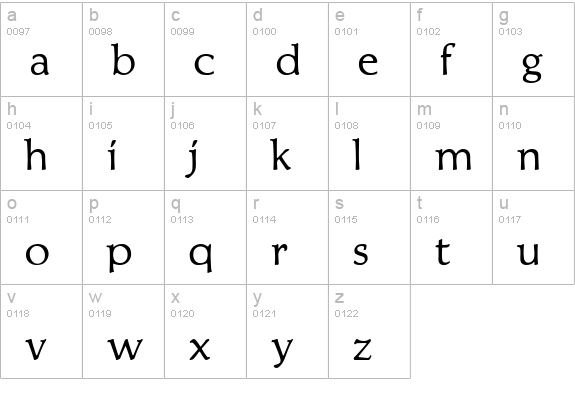
Lindum Font Details
Lindum font is a versatile and modern typeface that exudes elegance and sophistication. With its clean lines and stylish curves, Lindum is perfect for a wide range of design projects, from branding to editorial design. This font is designed to make a statement and captivate your audience with its unique charm. What sets Lindum font apart is not only its aesthetic appeal but also its availability for free download. Yes, you heard that right – Lindum font is freely available to download at FontsMarket.com. So whether you're a graphic designer looking to add a touch of class to your projects or a content creator seeking a font that stands out, Lindum is the perfect choice for you. Download Lindum font today and elevate your designs to new heights!